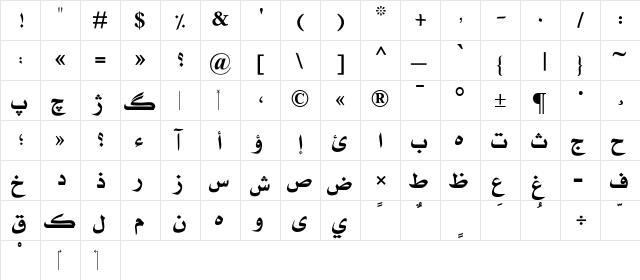
AGT Patyal Bold
| Designer | Ahmad Gul Totakhyl |
Design Context for AGT Patyal Typeface
AGT Patyal takes a measured approach to typography — its balanced proportions and neutral character make it a reliable workhorse for both digital and print work. Its bold stroke weight gives it real presence on the page.